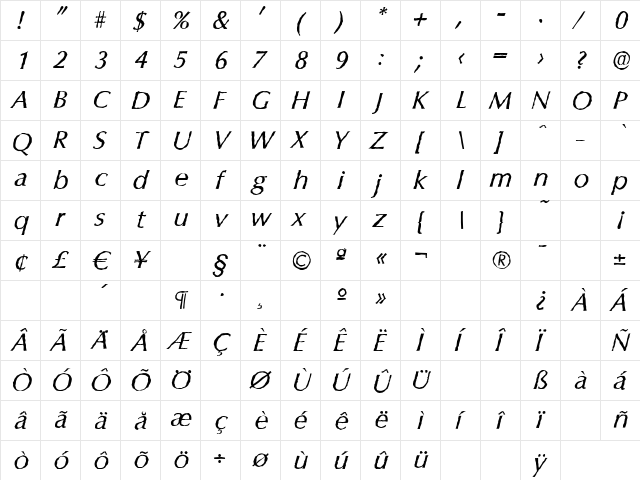
ColumbiaAntique Italic
Design Context for ColumbiaAntique Typeface
ColumbiaAntique wears its vintage influences proudly, with letterforms that recall mid-century signage, classic packaging, and nostalgia-driven design. Its italic angle brings a sense of urgency and motion to the letterforms.
Font Pairing: Combine ColumbiaAntique with a simple slab or neutral sans — period-accurate companions reinforce the vintage feel without competing for attention.
Pro Tip: Lean into ColumbiaAntique's period character by pairing it with aged paper textures, muted colour palettes, and vintage illustration styles.